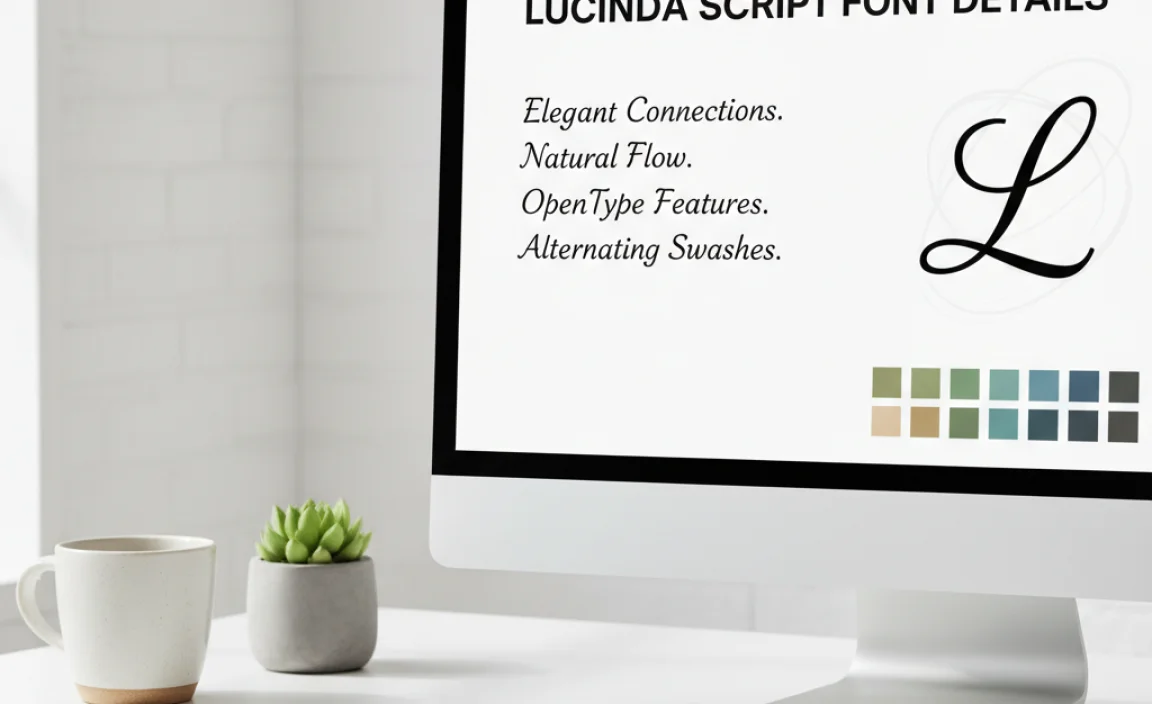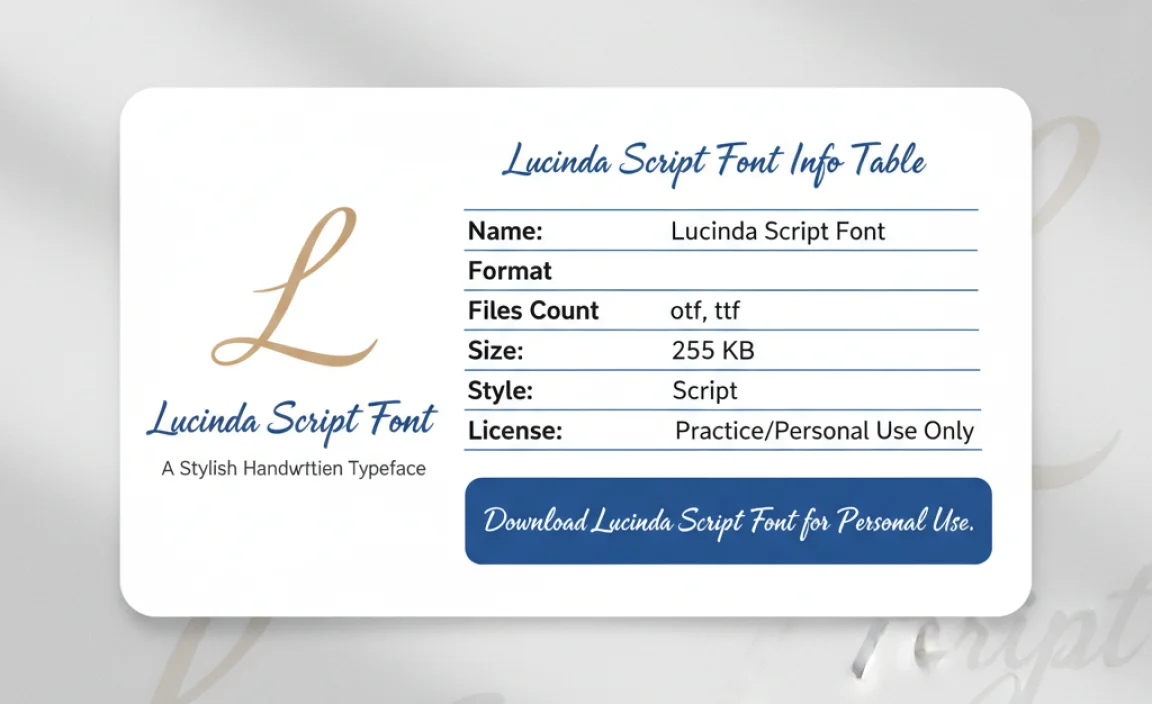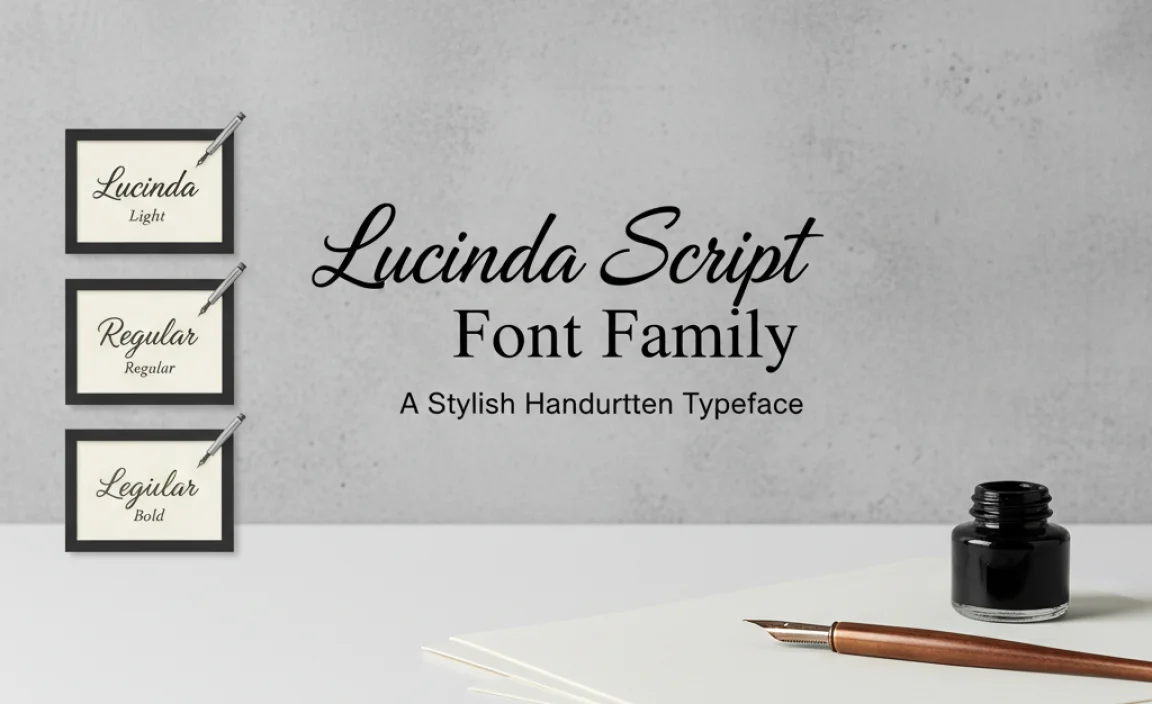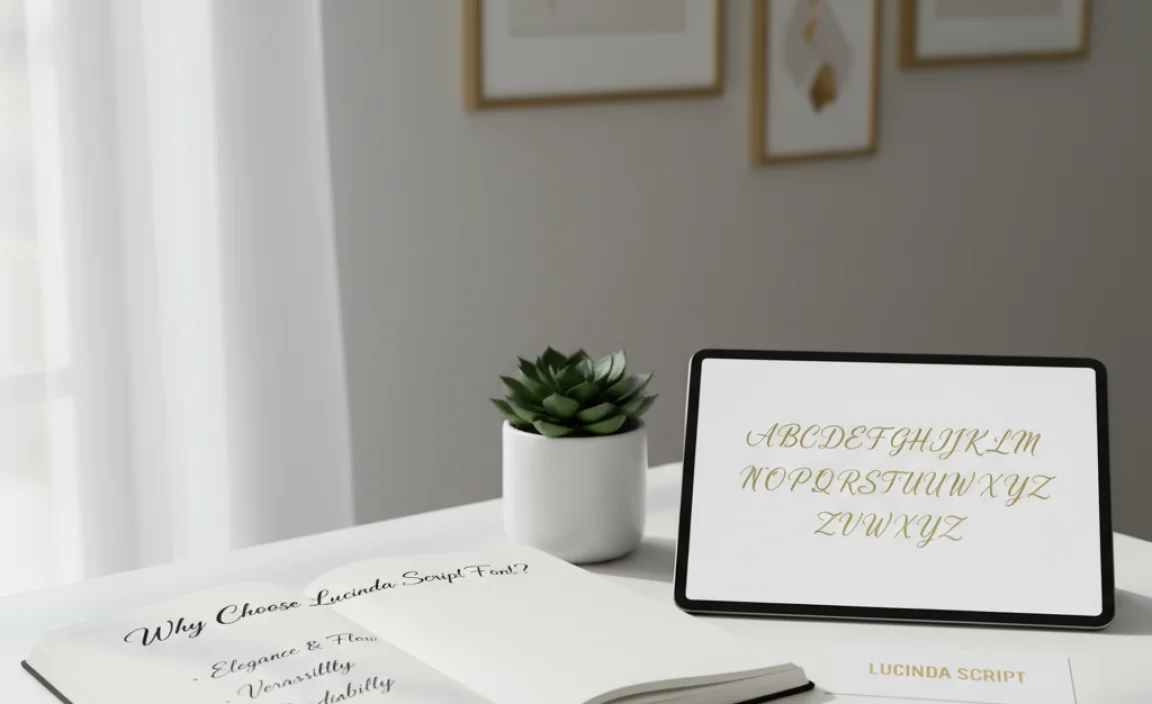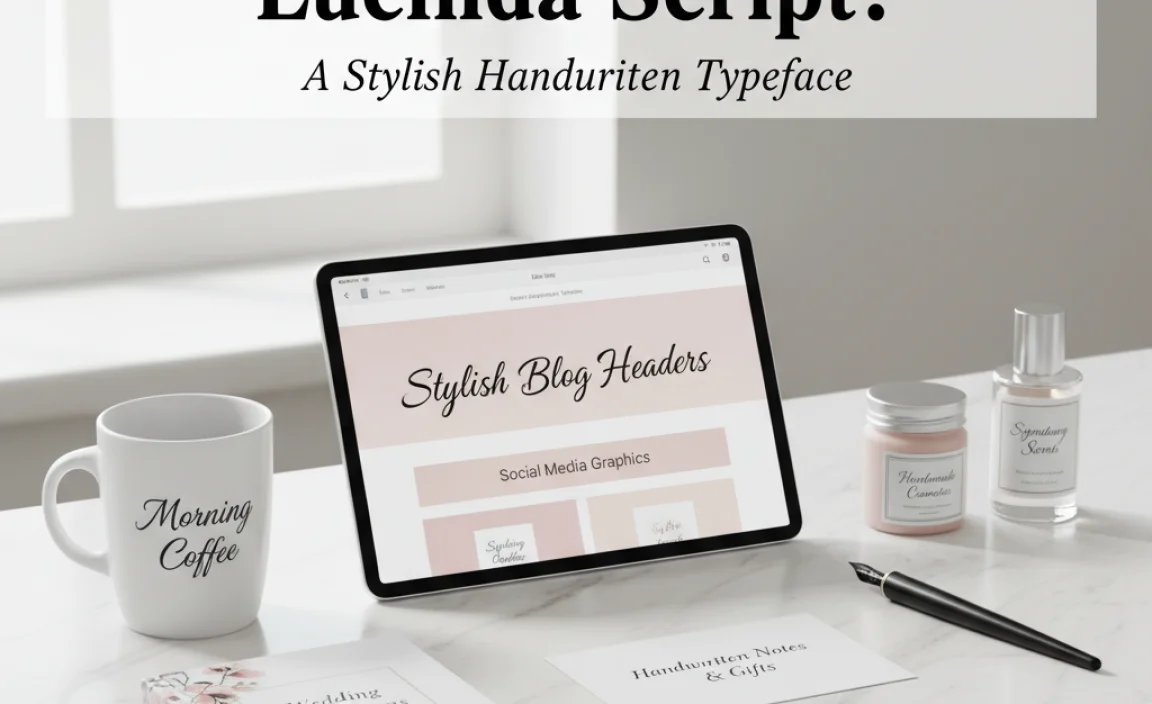
Lucinda Script is a graceful calligraphic font that combines elegance and versatility. Designed by Areatype Studio, featuring swashes, ligatures, and alternate characters, it is ideal for branding, greeting cards, wedding invitations, posters, and digital design projects.
This perfect font works effortlessly across various platforms, whether you’re using Adobe Illustrator, Microsoft Word, CorelDRAW X6/X7, or Adobe InDesign. Lucinda Script is a top choice if you’re searching for a sophisticated, handwritten font with OpenType features.
| Style | Calligraphy, Handwritten Script |
| Usage | Branding, Posters, Greeting Cards, Typography, Websites |
| Special Features | Swashes, Ligatures, Alternate Characters, OpenType Features |
Lucinda Script Font Family
Lucinda Script comes in multiple styles to match different design needs:
- Lucinda Script Regular – The main version has stylish curves and calligraphic details.
- Lucinda Script Italic – A slightly slanted variation for added elegance.
- Lucinda Script Bold – A bolder version for stronger visual impact.
- Lucinda Script Swash – Featuring decorative strokes and extended swashes.
Why Choose Lucinda Script Font?
- Elegant & Handwritten Look – Perfect for creating sophisticated branding projects.
- OpenType Features – Includes swashes, ligatures, stylistic alternates, and extra characters.
Where Can You Use Lucinda Script?
Lucinda Script is a versatile font that enhances various design projects:
- Branding & Logos – Used by high-end brands and fashion designers in New York.
- Greeting Cards & Invitations – Creates stylish wedding invitations and thank-you cards.
- Editorial & Digital Publications – Used in publications like Sun Digital Newspaper.
- Posters & Advertising – Eye-catching for event promotions, retail advertising, and social media posts.
- Packaging & Product Labels – Adds a premium look to cosmetics, candles, and handmade goods.
6. What Makes Lucinda Script The Perfect Font For Branding?
Its sophisticated calligraphic style, alternate characters, and swashes make it a top choice for premium branding.
7. Is Lucinda Script Similar To Fonts Used In Celebrity Branding?
Yes! Fonts with a similar aesthetic are often seen in branding for Kim Kardashian, Kanye West, and Khloe Kardashian.